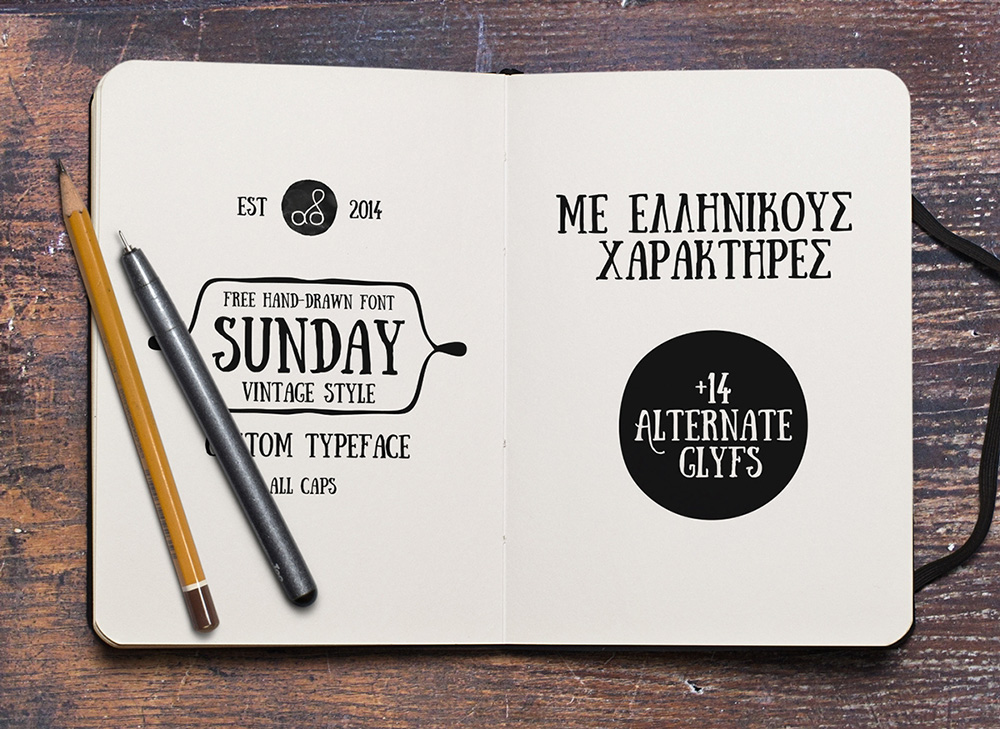
Free Vintage Style Hand-drawn Font
Friends, it's time for a free font!  Today's featured freebie is a hand-drawn font in vintage style and interestingly it's the debut font by Anastasia Dimitriadi. How cool!
The custom typeface comes in all caps plus 14 alternate glyphs. The font can be highly useful if you want are looking for vintage style for your logos, greeting cards, headings, banners and graphics. For me it's a total yes as I always love custom fonts and vintage themes. How about you??